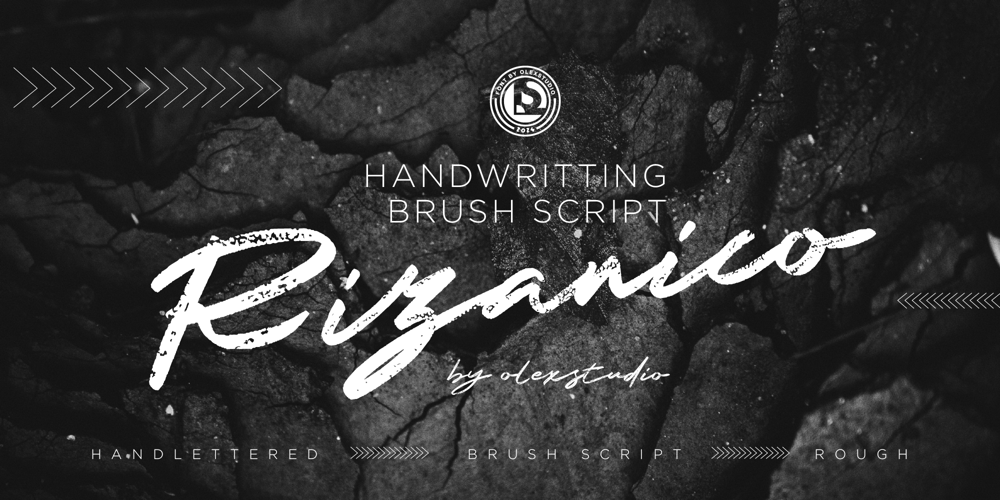
Rizanico Olstd
Rizanico Olstd font
Rizanico Olstd Font Family was designed by Firman Syah and published by Olexstudio. Rizanico Olstd contains 1 styles and family package options. Rizanico – Handwriting Brush Script Font will look gorgeous on all your designs, invitation, poster design, book design, branding materials, logo’s, and all project design other.WHAT’S INCLUDEDRizanico – Handwriting Brush Script Font contains standard characters, Lowercase, Uppercase, Alternates, numbers, punctuation, ligatures and international glyphs. Thanks 🙂